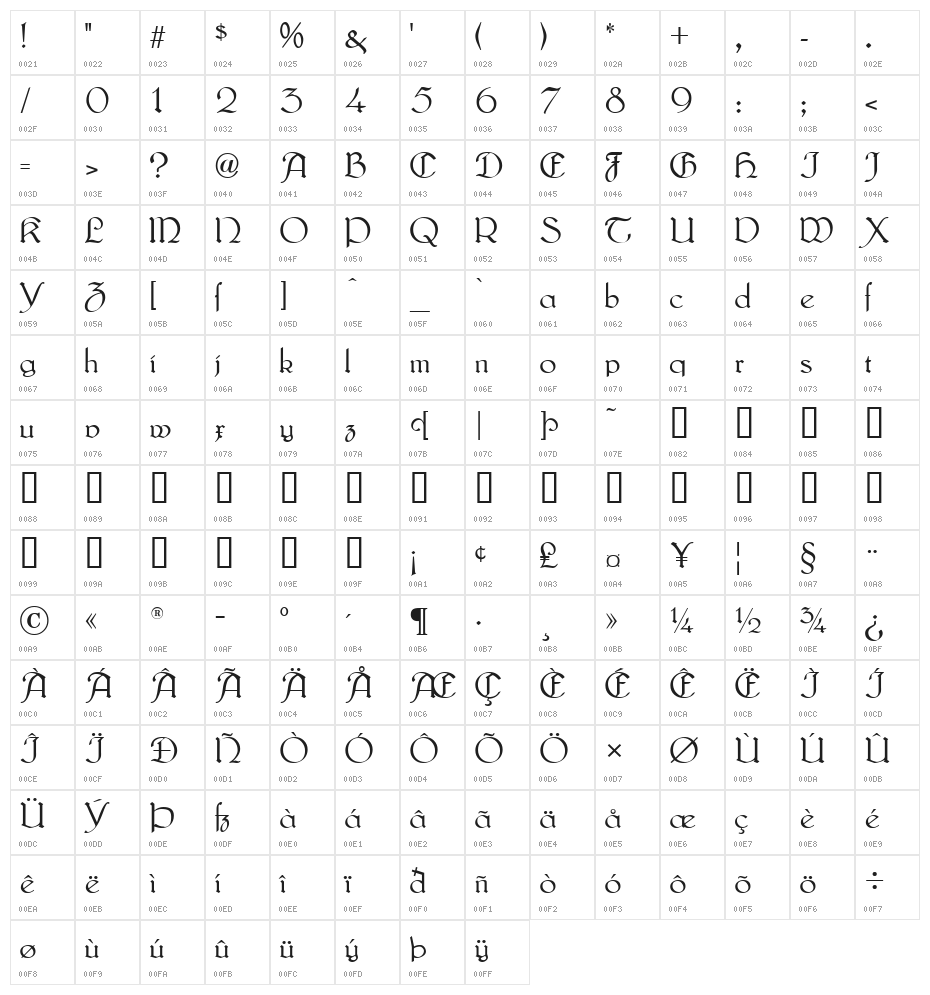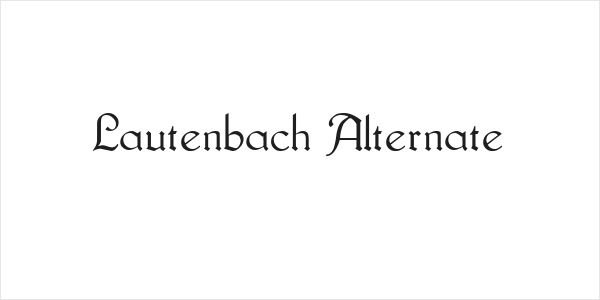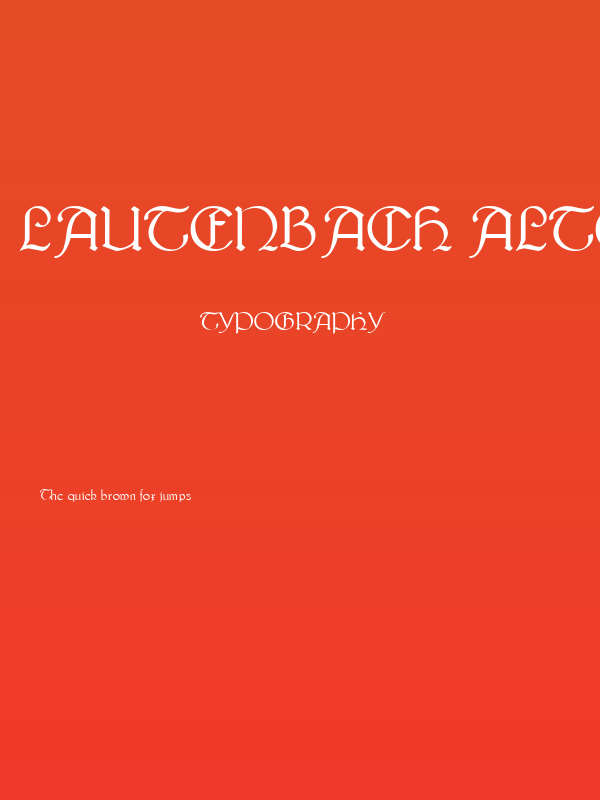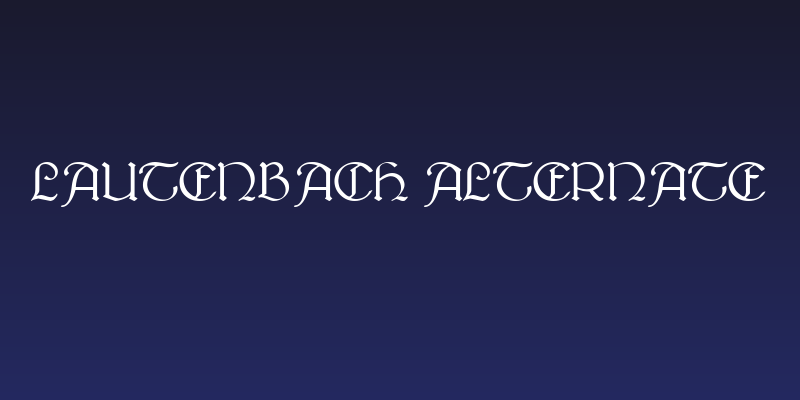
Lautenbach Alternate Font
Lautenbach Alternate Description
This font exhibits a classic and elegant style, reminiscent of traditional calligraphy with a modern twist. The uppercase letters are characterized by their ornate and flowing lines, while the lowercase letters maintain a more straightforward yet still sophisticated appearance. The numerals are distinct and easy to read, featuring subtle curves that add to the overall aesthetic. Special characters are designed with the same attention to detail, ensuring consistency throughout. This font's unique blend of traditional and contemporary elements makes it versatile for various design applications.
| Proposed Projects | Ideal for wedding invitations, luxury branding, certificates, and editorial design. |